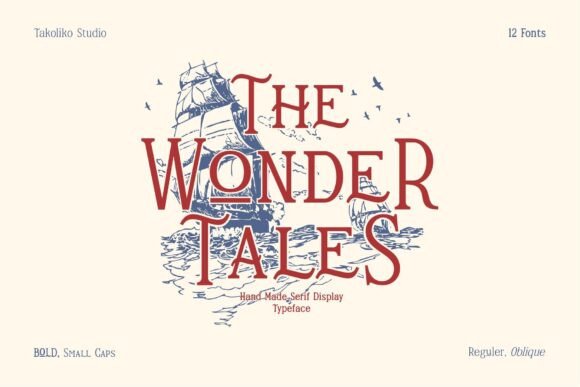
Introducing Wonder Tales Font, the ultimate choice for all your book title needs! This whimsical and magical serif font, created by the talented takoliko, will transport your readers into a world of enchantment and wonder. With its vintage charm and wise aura, Wonder Tales Font is perfect for adding a touch of mystique to your literary creations.
Why settle for ordinary when you can captivate your audience with the extraordinary? Wonder Tales Font brings a sense of magic to your book titles, making them truly stand out from the crowd. Its intricate details and refined curves evoke a sense of elegance and craftsmanship, elevating your design to new heights.
But Wonder Tales Font is not just visually stunning; it is also incredibly versatile. Whether you're working on a fantasy novel, a historical non-fiction, or even a children's book, this font effortlessly adapts to any genre. Its timeless appeal ensures that your book title remains relevant and captivating for years to come.
Unlock your creativity and express your unique style with Wonder Tales Font. Its extensive character set allows you to experiment with various letterforms and styles, giving your titles a personalized touch. Let your imagination run wild as you combine this font with stunning illustrations or mesmerizing imagery, creating a truly immersive reading experience.